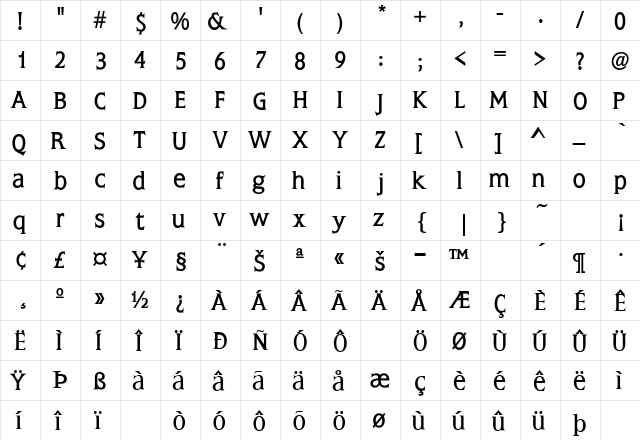
NoblesseSSK Bold
Design Context for NoblesseSSK Typeface
NoblesseSSK offers clean, dependable letterforms without strong stylistic allegiance, making it a practical choice for designers who need flexibility. The heavy weight commands attention and anchors typographic hierarchies.